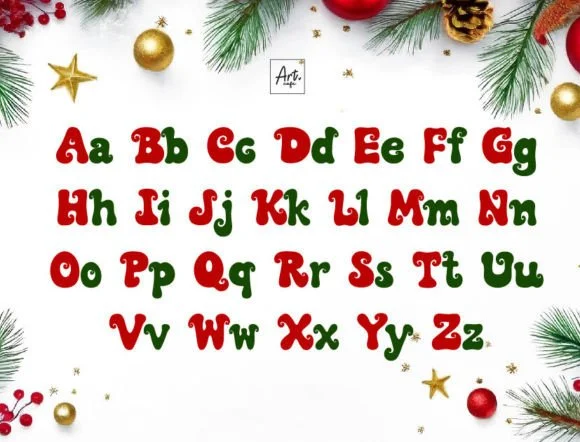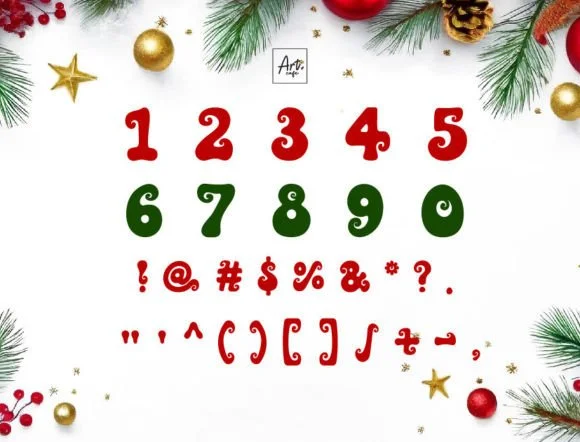
Retro Christmas Font
This vintage font is perfect for nostalgic Christmas campaigns, classic holiday advertisements, retro Christmas postcards, vintage seasonal branding, old-fashioned Christmas decorations, antique holiday packaging, timeless Christmas invitations, heritage holiday displays, classic Christmas merchandise, and traditional vintage seasonal communications.
Retro Christmas Font is exciting because it authentically recreates the distinctive charm and elegant simplicity of mid-century Christmas design, transporting viewers to the golden age of holiday advertising when Christmas imagery was characterized by clean lines, bold colors, and optimistic messaging. The font features classic proportions with period-appropriate styling that reflects the sophisticated design sensibilities of the 1940s through 1960s, incorporating subtle Art Deco influences and streamlined details that capture the era's faith in progress and prosperity. Each character showcases the confident craftsmanship and attention to quality that defined vintage typography, with balanced letterforms and timeless elegance that feel as fresh and appealing today as they did decades ago. The design perfectly embodies the aspirational beauty and wholesome family values that characterized Christmas celebrations during America's post-war boom years.
The Retro Christmas Font family includes vintage-authentic variations: Regular, Bold, Light, Classic, and Streamline versions. The collection features special period elements including Art Deco accents, vintage ornament details, classic star flourishes, and mid-century ornamental touches. Additional components include retro borders, classic frames, vintage decorations, and timeless ornamental designs that enhance the font's retro Christmas appeal and create cohesive mid-century holiday themes.
Collectors and vintage marketing specialists will find Retro Christmas Font to be an invaluable resource for creating authentic period communications that honor the sophisticated design heritage of classic Christmas advertising. This meticulously researched font transforms modern holiday messaging into genuine vintage expressions that capture the optimism, elegance, and family-centered values that defined Christmas celebrations during the golden age of American design.
The typeface includes comprehensive character support with historically accurate styling that maintains excellent readability while conveying the refined elegance and timeless appeal of classic Christmas design. The font's authentic proportions ensure beautiful results across both reproduction vintage projects and contemporary retro-inspired applications.
Perfect for vintage collectors, retro brands, classic Christmas celebrations, and nostalgic holiday marketing, this font delivers authentic period impact that communicates timeless elegance, family values, and the enduring appeal of classic Christmas design that continues to inspire and delight audiences seeking genuine vintage authenticity.